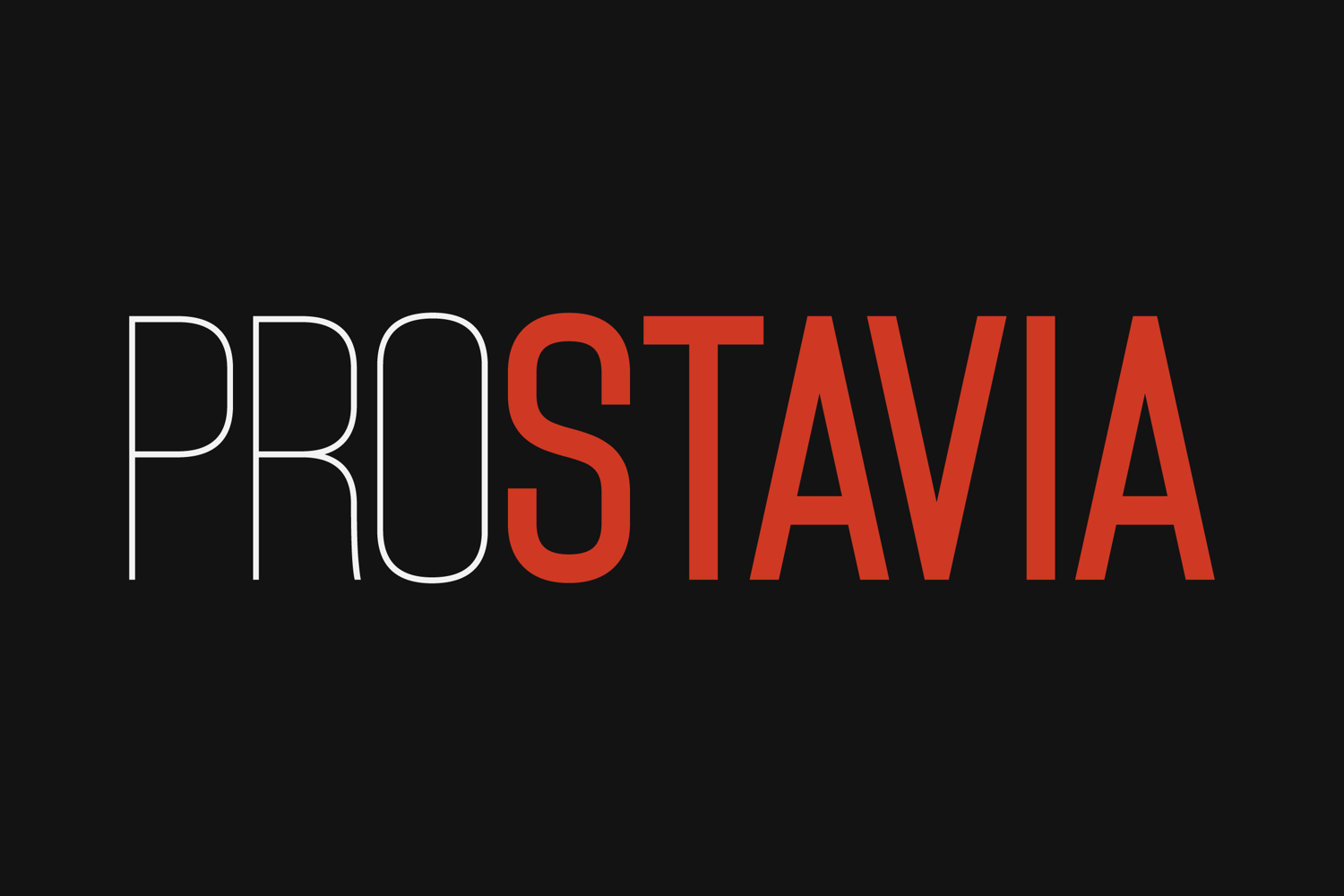
Prostavia Sans Serif Modern Typeface
Prostavia Medium
Prostavia Bold
Prostavia Black
Prostavia Regular
Prostavia Extra Light
Prostavia Light
Prostavia Thin
Prostavia is a modern sans serif typeface that blends bold presence with clean, minimalist elegance. Its balanced proportions and versatile style make it a strong choice for branding, editorial design, packaging, advertising, and digital use.
From powerful headlines to refined logos and polished layouts, Prostavia adds a clear and confident voice to any project.
• 7 Weights (Thin to Black)